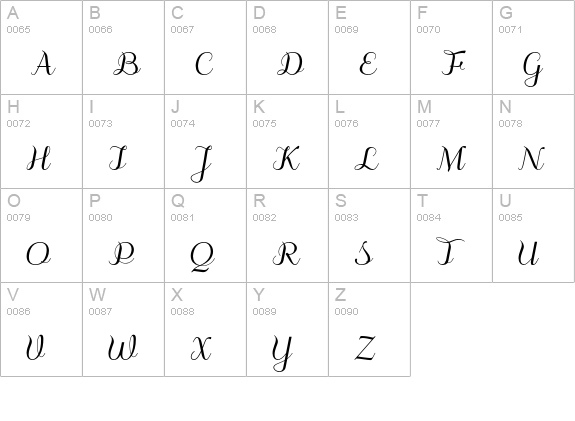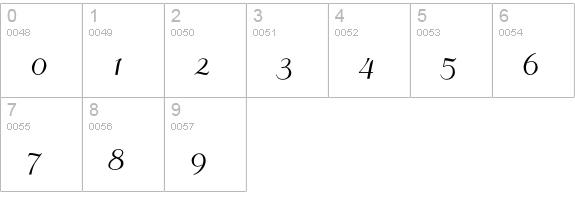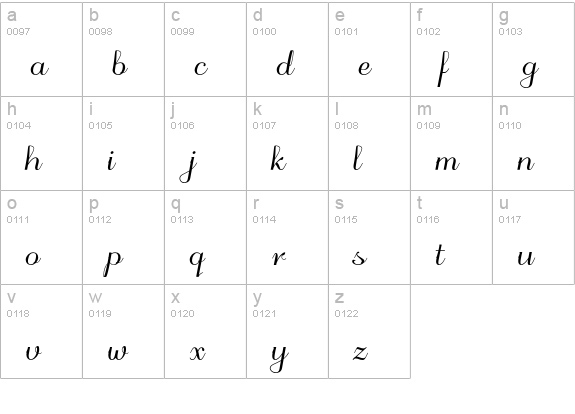
odstemplik Font Details
Introducing the stunning and versatile ODSTemplik font! This elegant typeface features a unique blend of modern and classic design elements, making it perfect for a wide range of projects. With its clean lines and sleek curves, ODSTemplik exudes sophistication and style. But here's the best part - ODSTemplik is completely free to download at FontsMarket.com! Yes, you read that right. You can elevate your designs with this beautiful font without spending a dime. Whether you're working on branding, invitations, posters, or any other creative project, ODSTemplik is sure to make a bold statement. Don't miss out on this amazing opportunity to enhance your typography collection with the exquisite ODSTemplik font. Download it for free today and let your creativity soar!